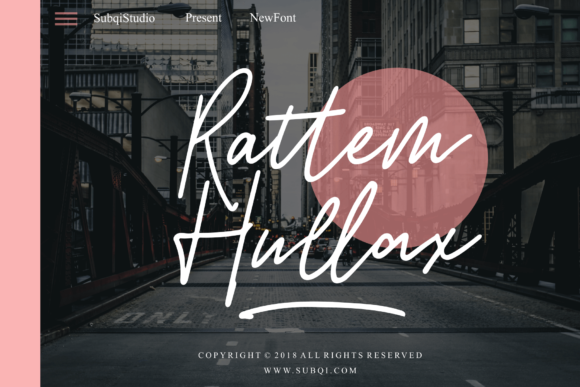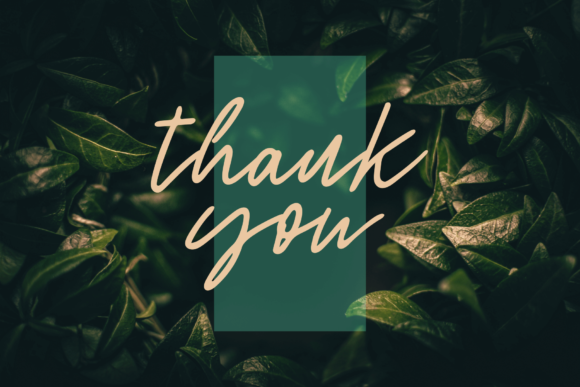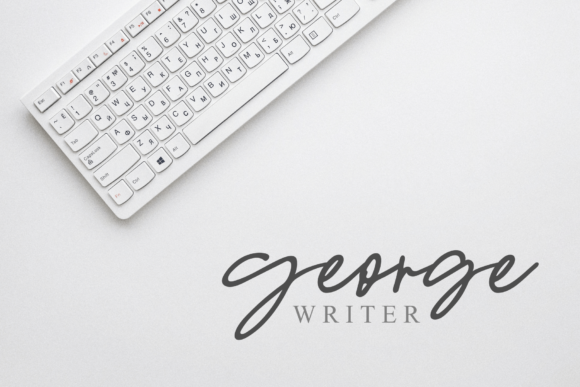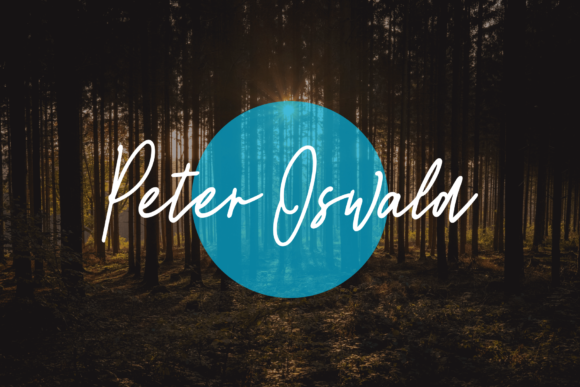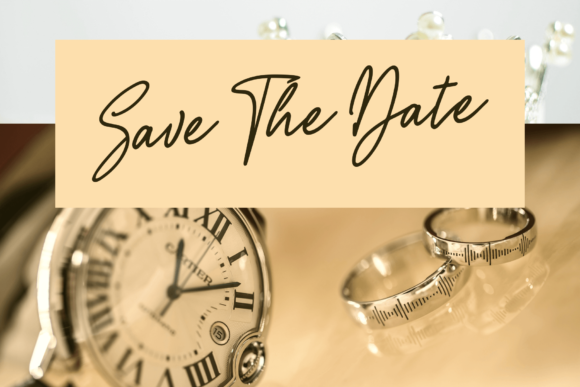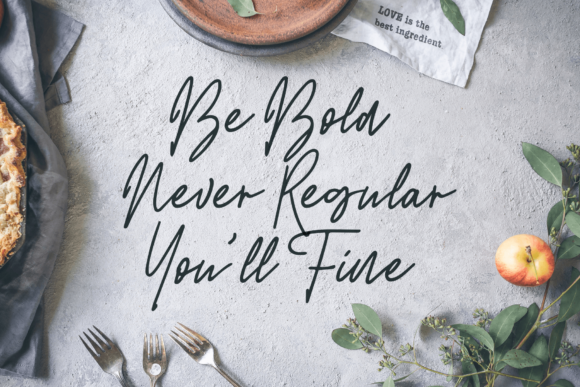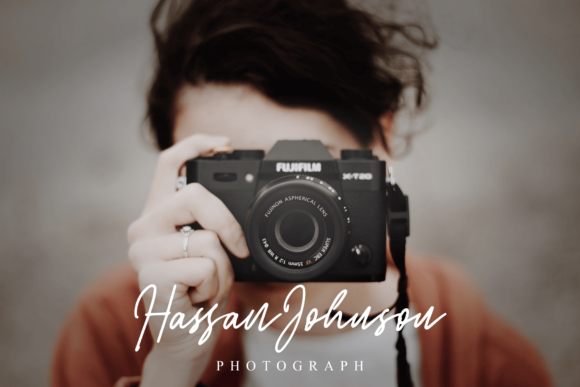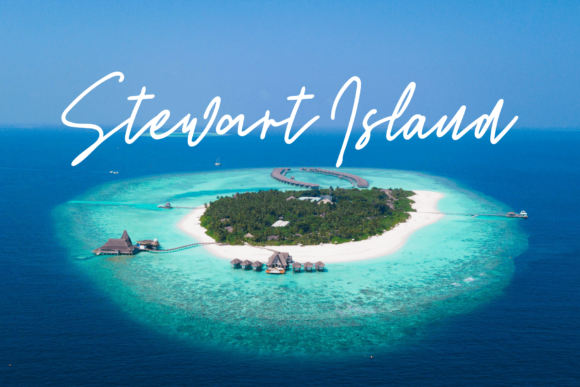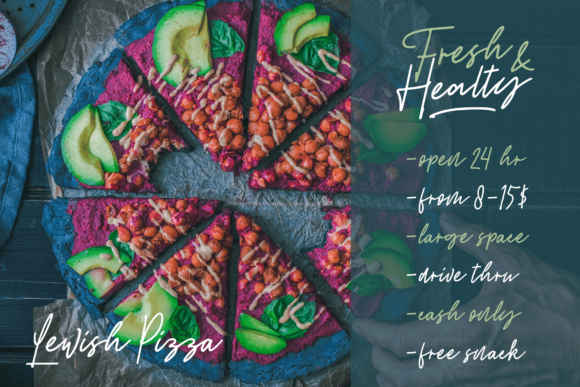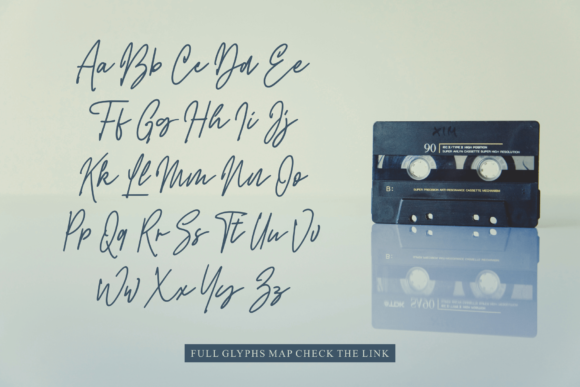
Rattem Hullax Font
About Rattem Hullax Font
The Rattem Hullax is a beautiful signature typeface. It has a handwritten ballpoint pen feel to it and will give your design an organic touch.